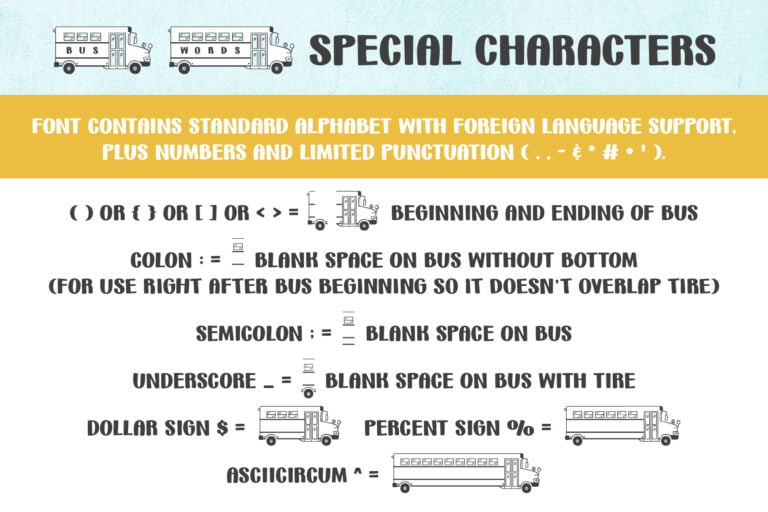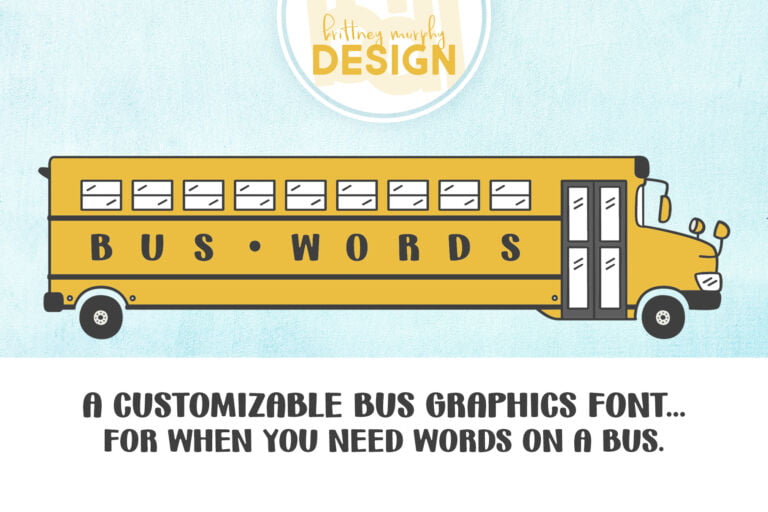
Bus Words Font
The Bus Words font is a fun bus graphic creator! The font contains standard alphabet with foreign language support, plus numbers and limited punctuation ( . , – & * # • ‘ ).
Use special characters to make the bus!
() or {} or [] or <> = bus beginning and ending
semicolon ; = blank space on bus
colon : = blank space on bus without bottom line
underscore _ = blank space on bus with tire
dollar sign $ = 3 window blank bus
percent sign % = 6 window blank bus
asciicircum ^ = 9 window blank bus